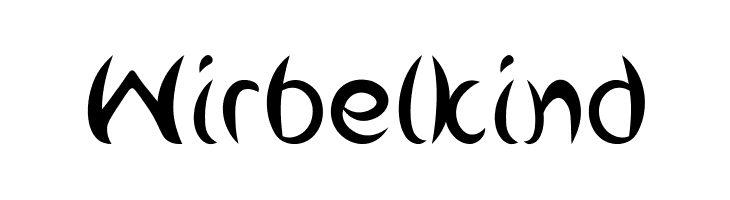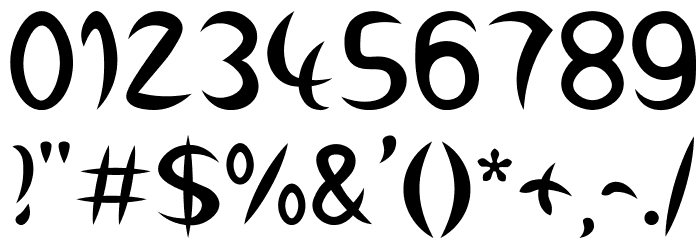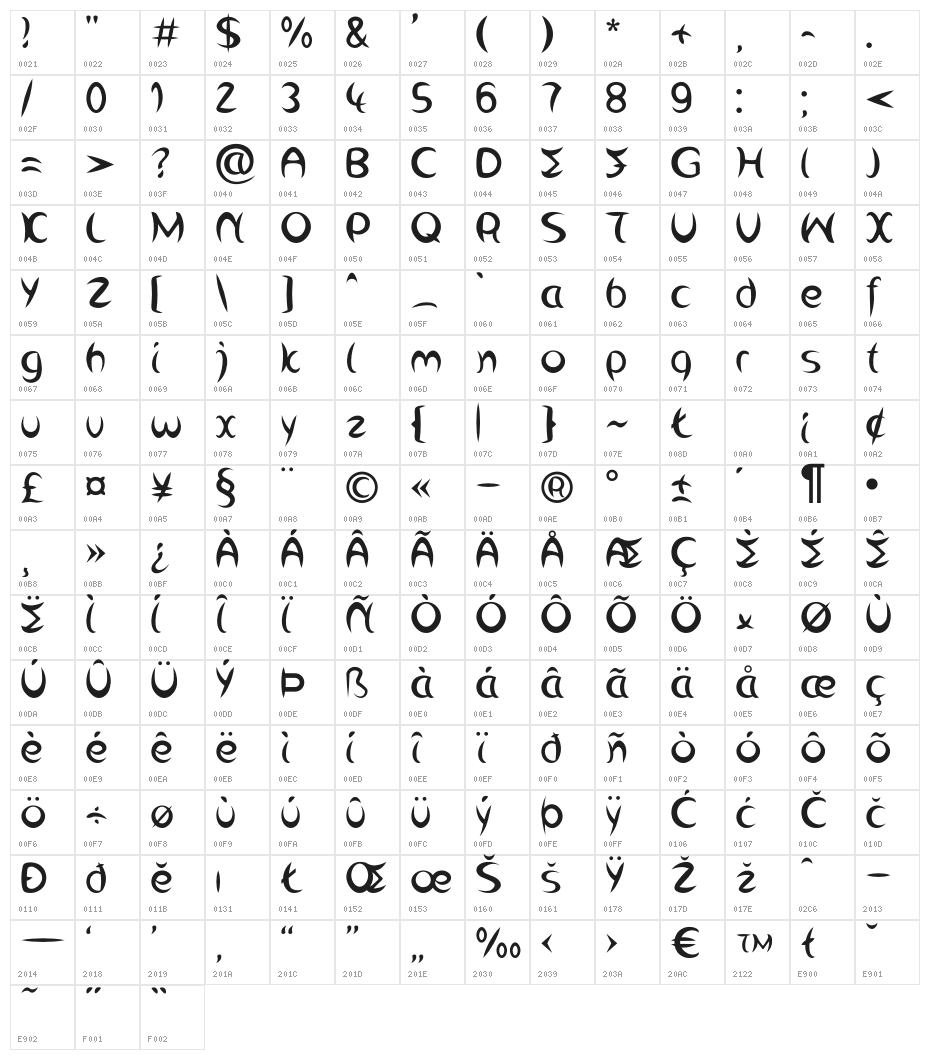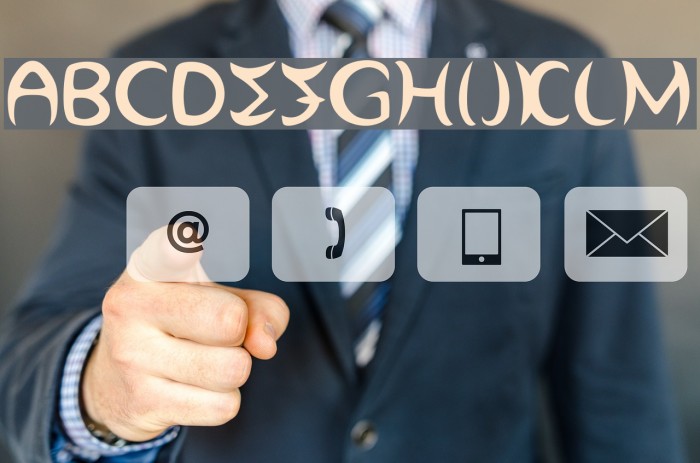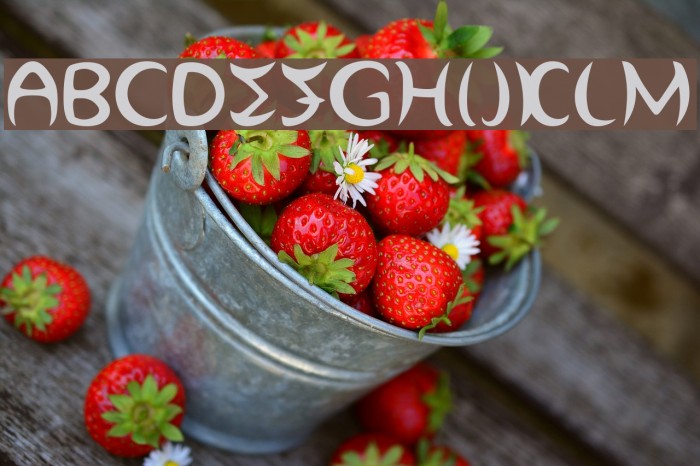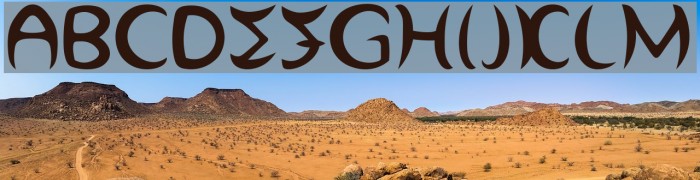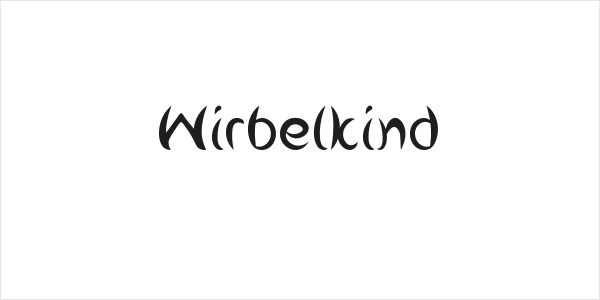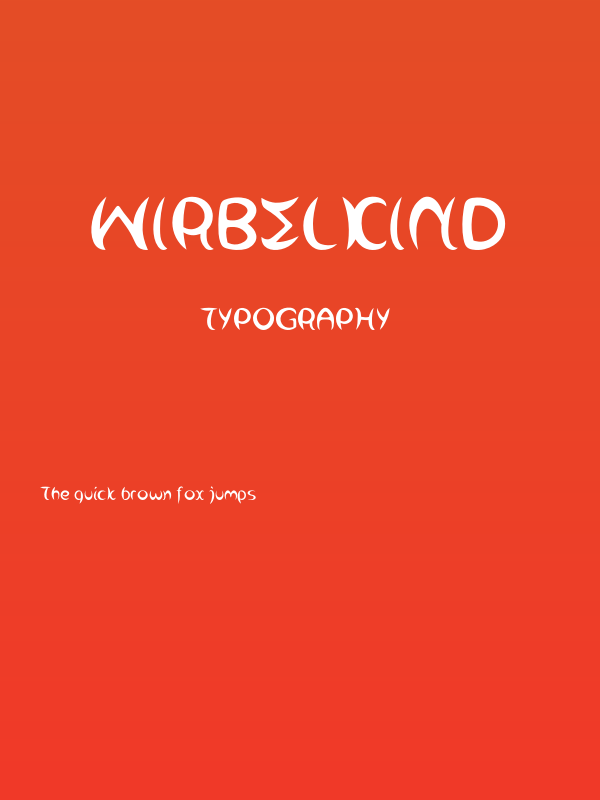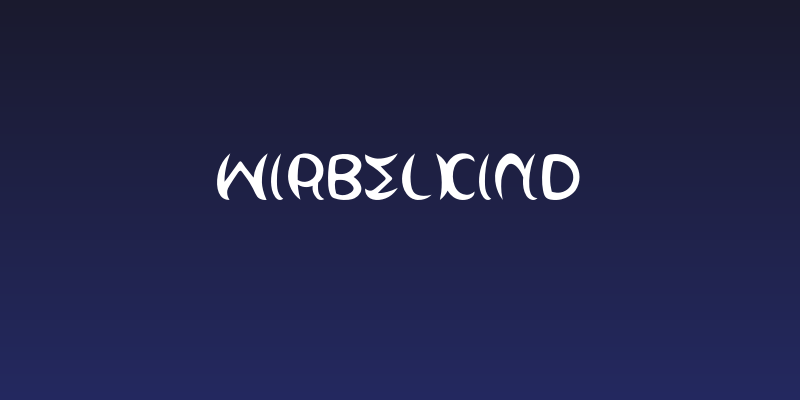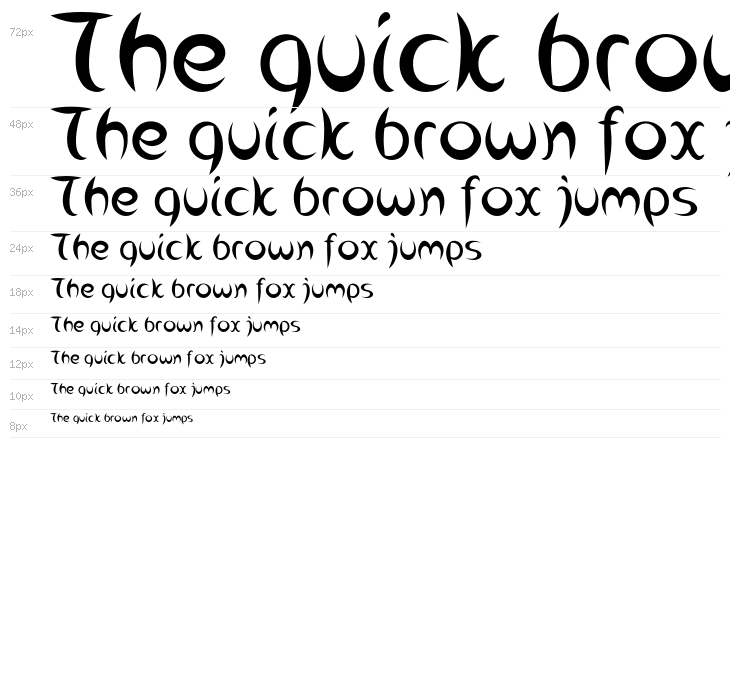
Wirbelkind Font
Wirbelkind Description
This font features a unique and artistic style with sharp, curved edges and a dynamic flow. The characters exhibit a playful yet edgy appearance, with exaggerated curves and pointed terminals that give it a distinctive look. The uppercase and lowercase letters maintain a consistent style, while the numerals and special characters complement the overall design. The font's bold and expressive nature makes it suitable for creative and eye-catching projects, where a touch of flair and individuality is desired.
| Proposed Projects | Ideal for posters, album covers, branding, and creative design projects that require a bold and unique aesthetic. |